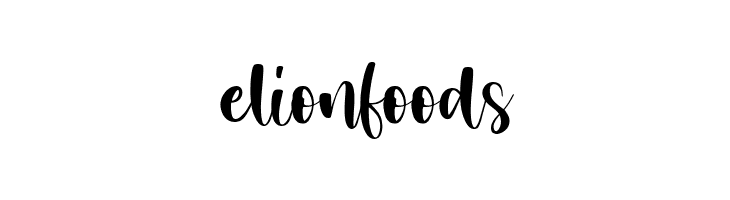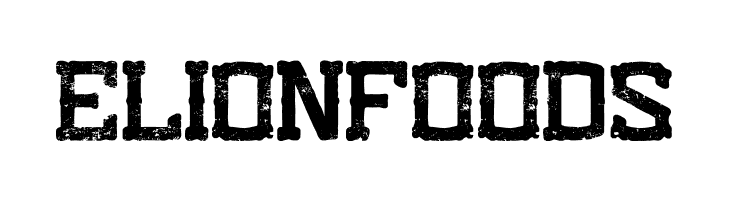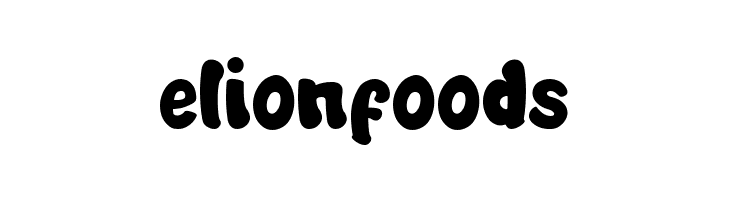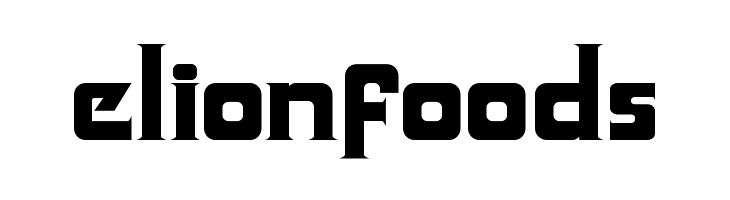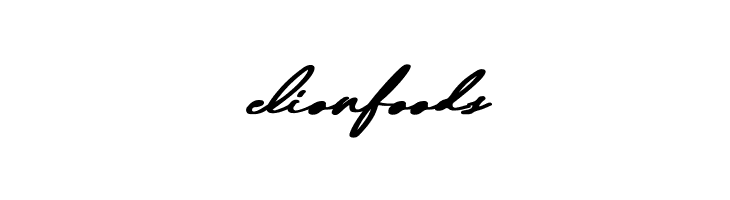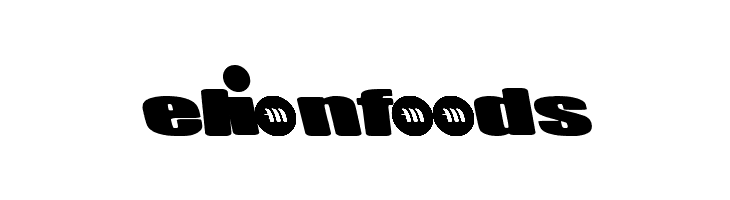
• Mintcoin
A bold, impactful font with rounded edges and uniform thickness.
• Mirava Regular Personal Use Onl
A modern sans-serif font with geometric shapes and balanced proportions.
• Mistikus Cinta
A flowing, cursive font with elegant, interconnected strokes.
• Misuri Club
A bold, distressed font with a vintage, industrial feel.
• MiszellenJuly
Ornate pictogram and dingbat font with diverse, detailed illustrations.
• Miver - Personal Use
A bold, geometric font with angular, futuristic design elements.
• MKancellerescaCaps
An elegant, calligraphic font with ornate, angular strokes and decorative flourishes.
• MKlimesCondensed
A classic, condensed serif font with elegant, elongated characters.
• Moana Script
A sophisticated script font with flowing, interconnected letters and ornate uppercase designs.
• Mocca Sweet
A bold, playful font with rounded, bubbly characters.